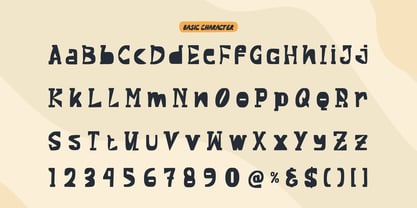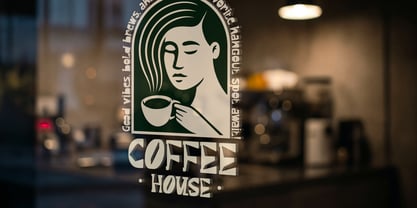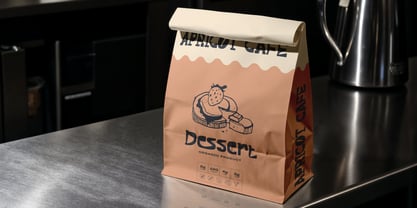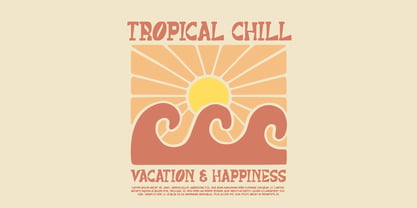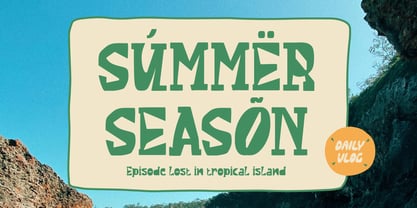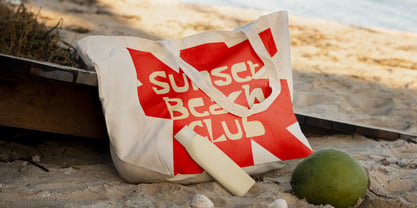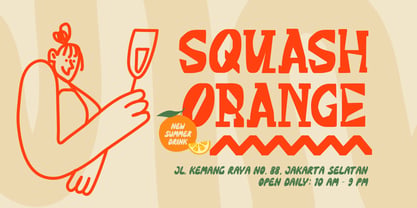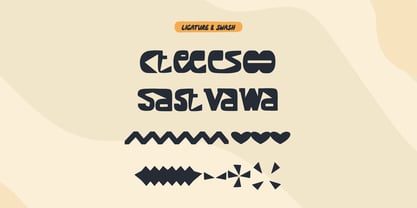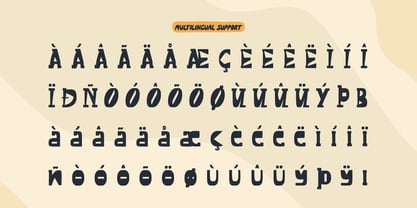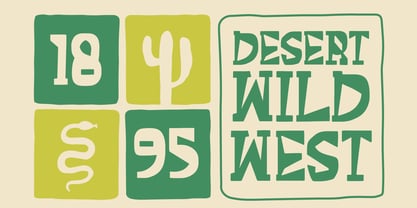
Munch Mallow
Munch Mallow | Fun Hand Drawn Font, from Gracetypestudio, suitable for any projects such as: logos, branding projects, homeware designs, product packaging, mugs, quotes, posters, shopping bags, t-shirts, book covers, name card, invitation cards, greeting cards, label, photography, watermark, special events, and all your other lovely projects that need a Fun Hand Drawn Font taste.
• Regular and Italic
• Standard glyphs
• Alternate and Ligature
• Fonts include multilingual support